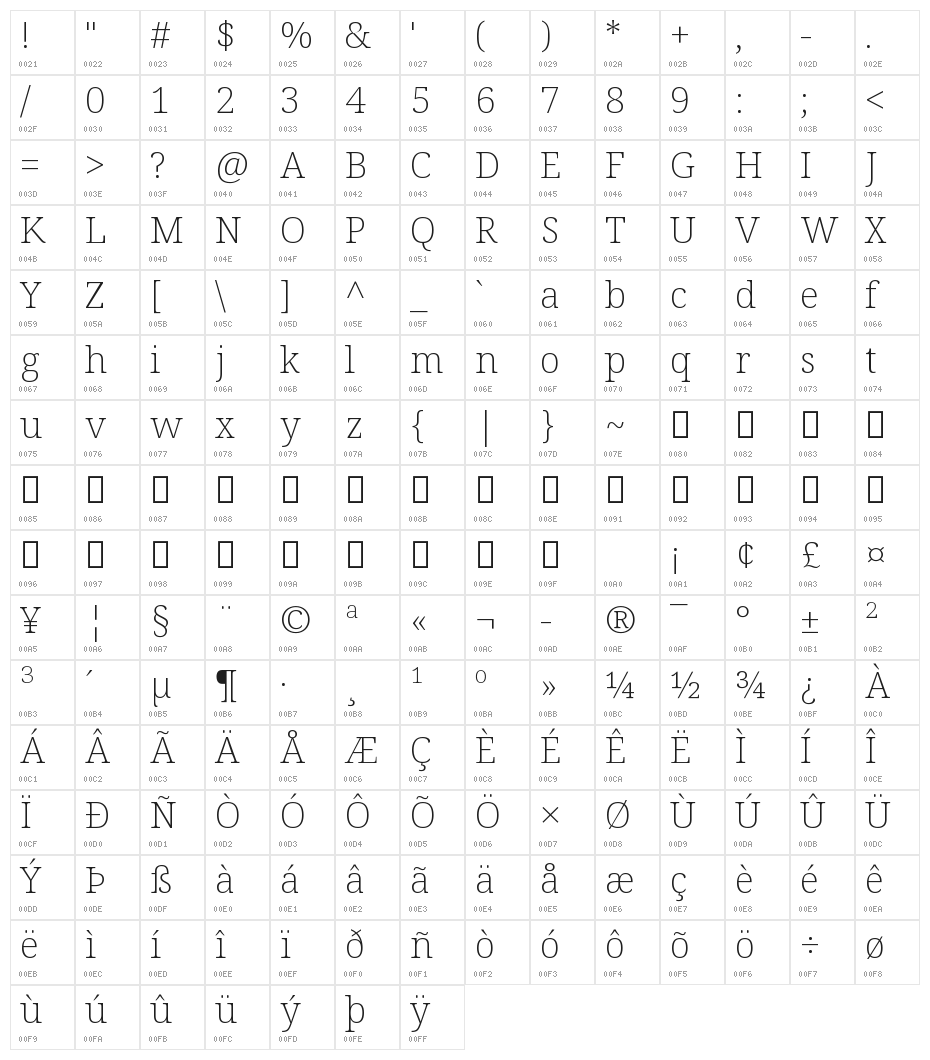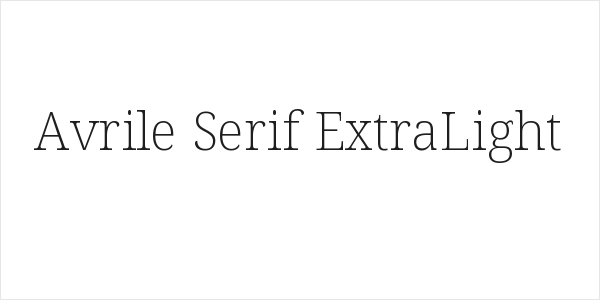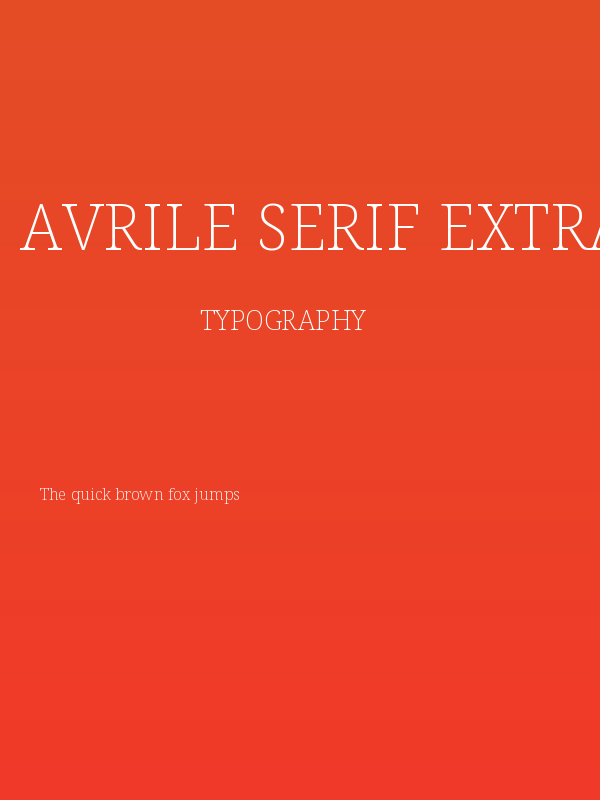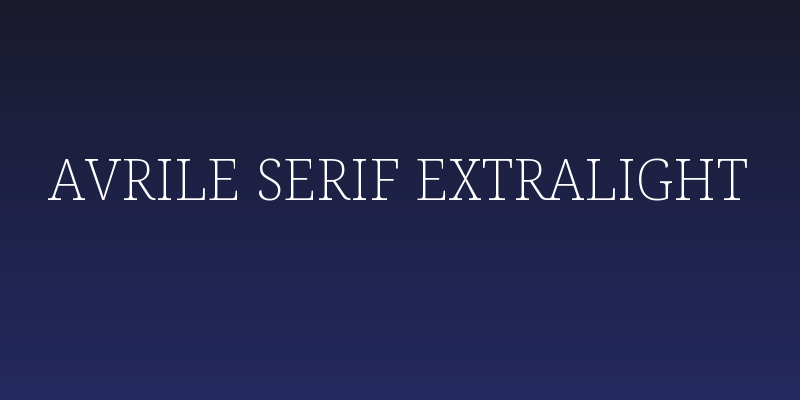
Avrile Serif ExtraLight Font
Avrile Serif ExtraLight Description
This font features a refined and elegant serif style, characterized by its thin and delicate strokes. The serifs are subtle yet distinct, adding a touch of sophistication to the overall appearance. The uppercase letters are tall and stately, while the lowercase letters maintain a consistent height, providing a harmonious balance. The numerals are clear and easy to read, with a uniform width that complements the alphabetic characters. Special characters are well-integrated, maintaining the font's cohesive aesthetic. This font's extra light weight makes it ideal for projects that require a touch of elegance and minimalism.